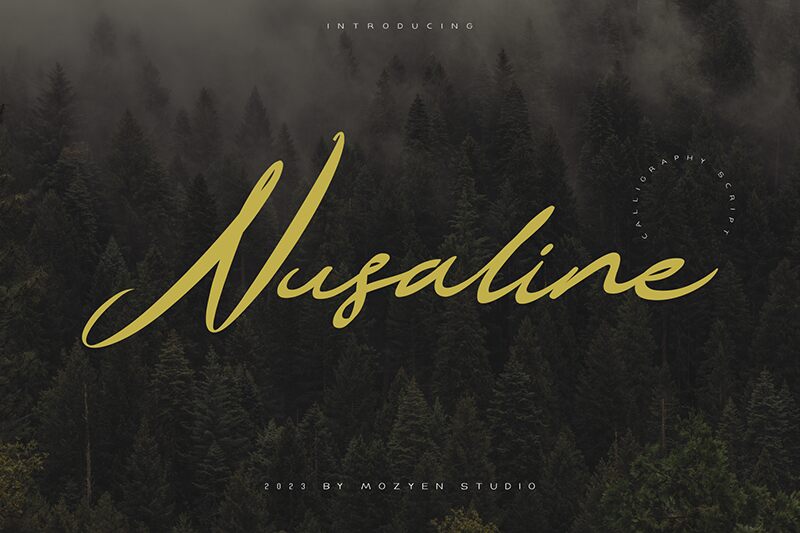
Nusaline
Nusaline font by Mozyen Studio is an elegant free calligraphy font with a modern script aesthetic and stylish flair. It features sophisticated, flowing curves and strokes achieved with its refined contrast in thicknesses. Its condensed uppercase with more decorated, sweeping lowercase has a decidedly feminine and stylish flair.